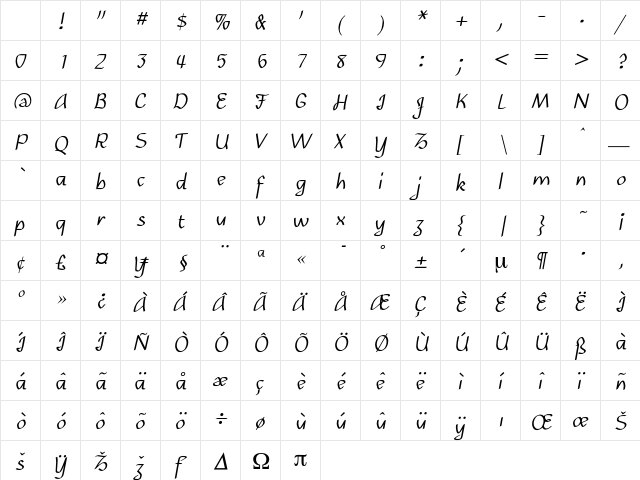
Complete Daemon Regular glyph index. Displaying only characters natively supported by Daemon Regular font.
Daemon is a composed and adaptable typeface that performs quietly and consistently across a wide range of design contexts.